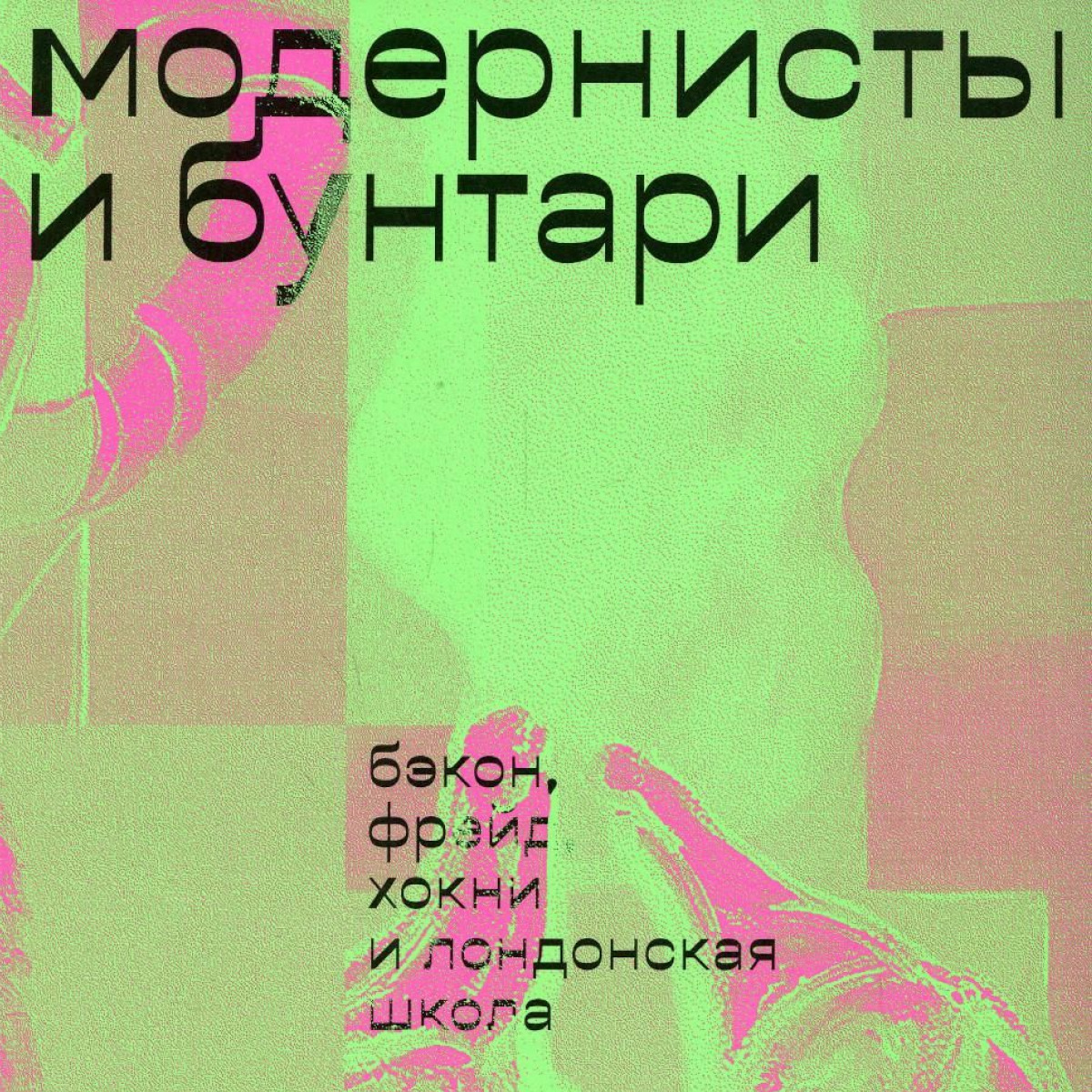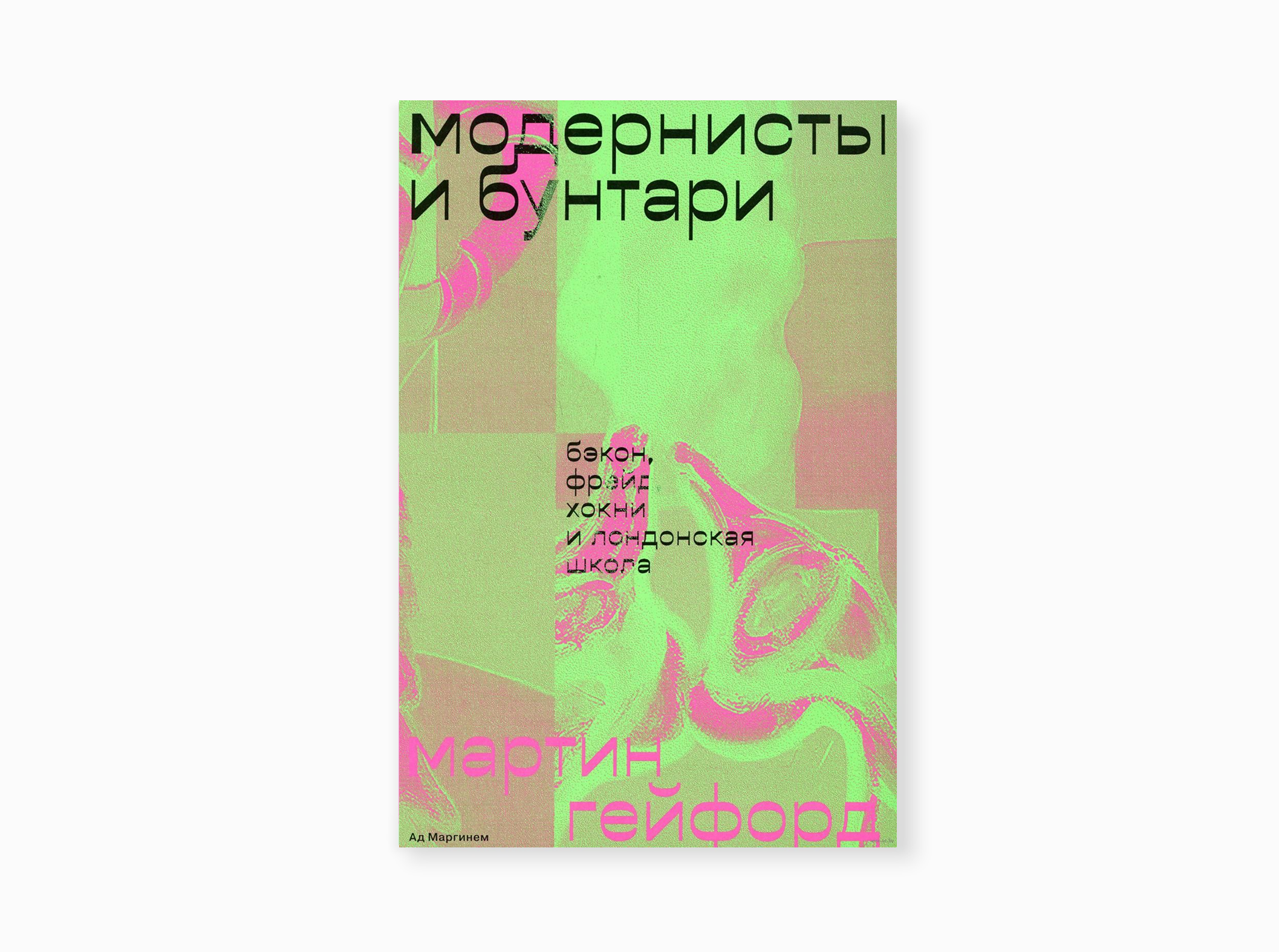
Modernists and Mavericks: Bacon, Freud, Hockney and the London Painters is a book by art critic Martin Gayford about the work of the mentioned painters in the context of the Bohemian life of London of that time. The russian translation of the book was published as part of the joint programme of Ad Marginem publisher and ABC Design studio. The typography on its cover is executed using Archaism by Nikita Kanarev.
A closed mechanical grotesque based on a narrow reverse-contrast typeface, Archaism comes in 15 styles, each of which is a step from distortion to conventional and regular shapes. It is also available as a variable font of two axes.